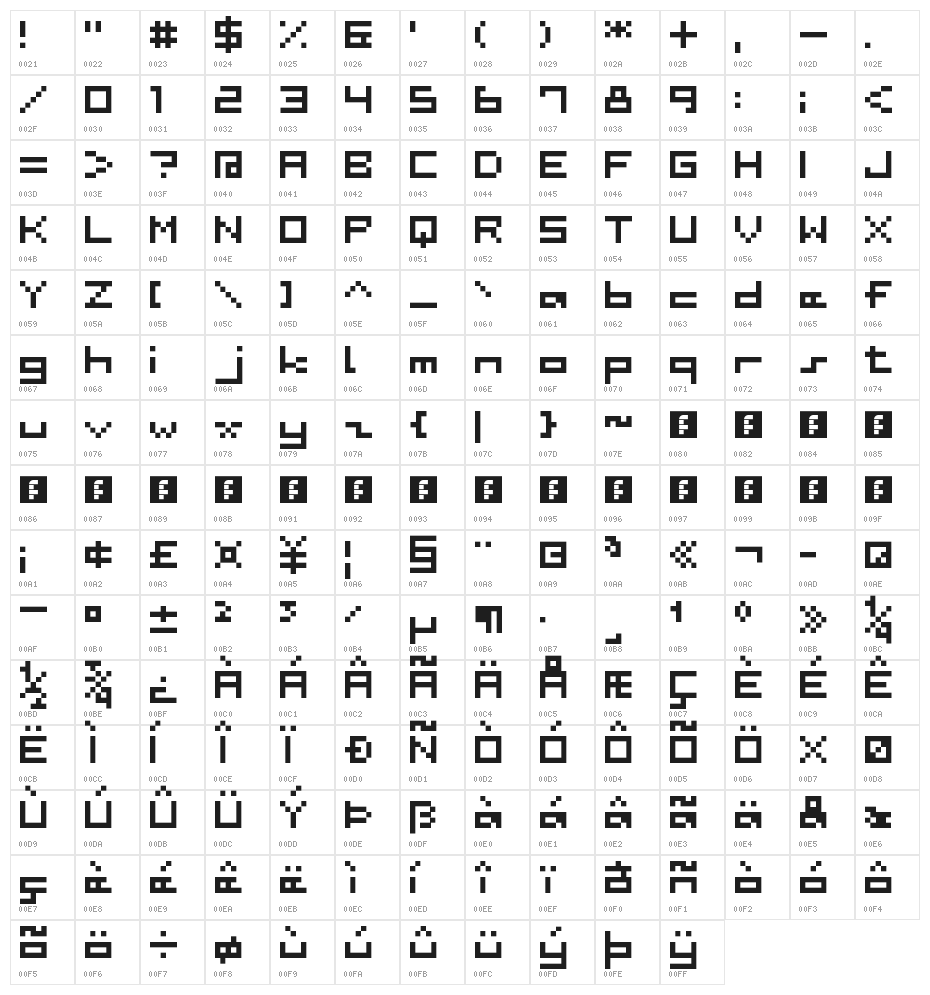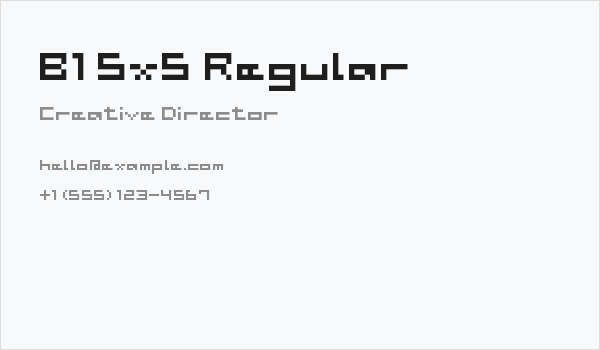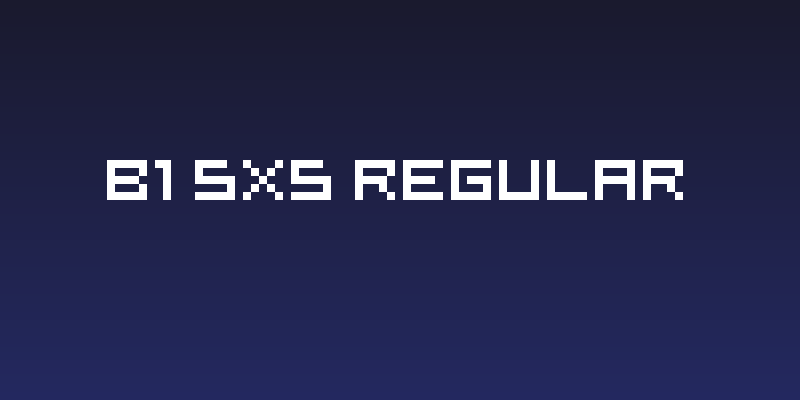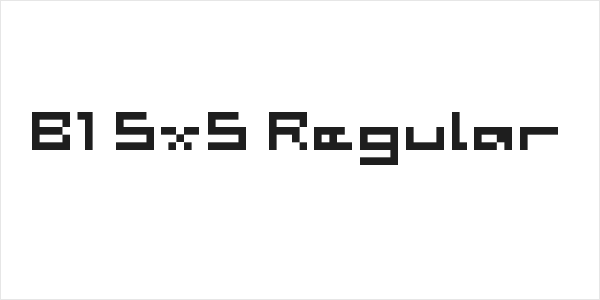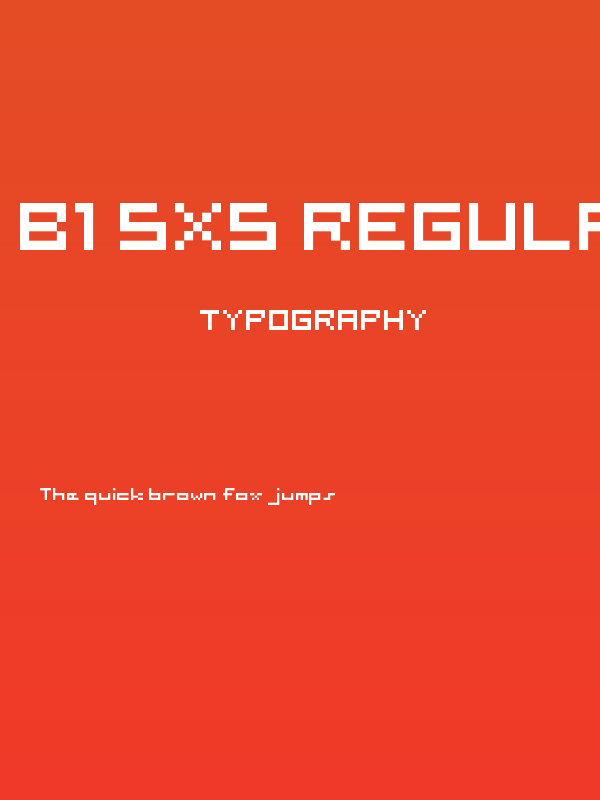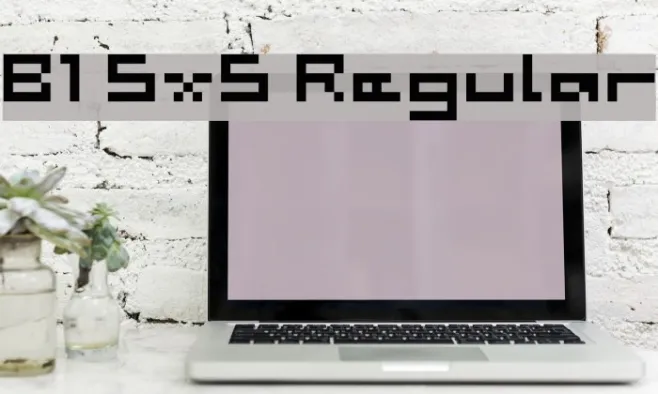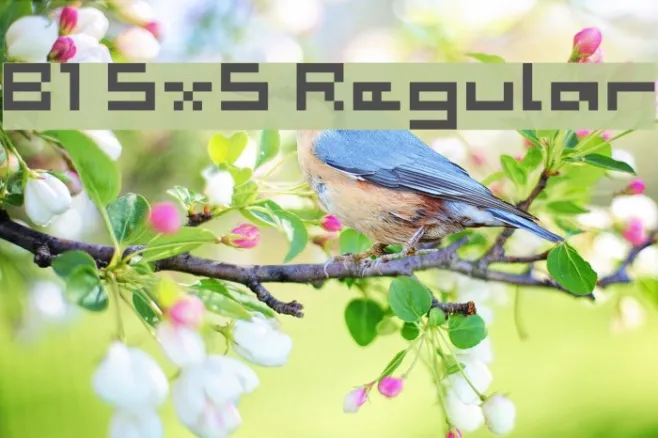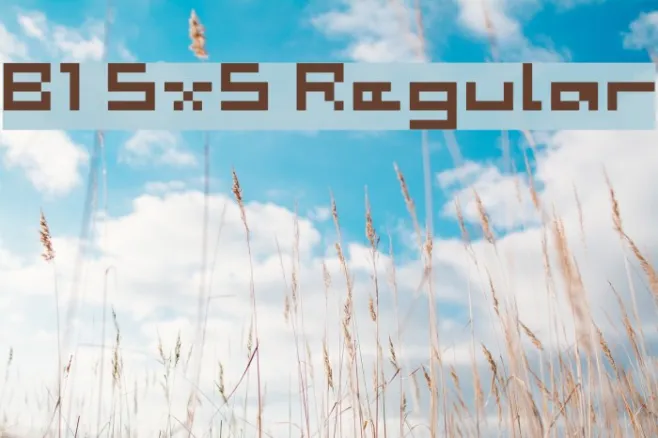
B1 5x5 Regular Font
B1 5x5 Regular Description
This font features a pixelated, blocky design that is reminiscent of early digital displays and retro video games. Each character is constructed with a grid-like precision, giving it a distinct, geometric appearance. The uppercase and lowercase letters maintain a consistent height, contributing to a uniform look. The numerals and special characters follow the same pixelated style, ensuring cohesion across all glyphs. This font's simplicity and clarity make it highly legible, even at smaller sizes, while its nostalgic design evokes a sense of vintage digital aesthetics.
| Use Case | Logos, Headlines, Digital Art |
| Proposed Projects | Ideal for retro-themed designs, video game graphics, digital art projects, and any creative work that seeks to evoke a sense of nostalgia for early computing. |